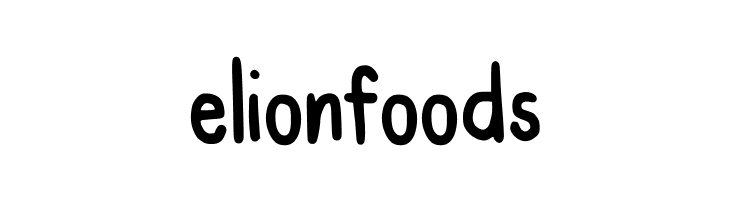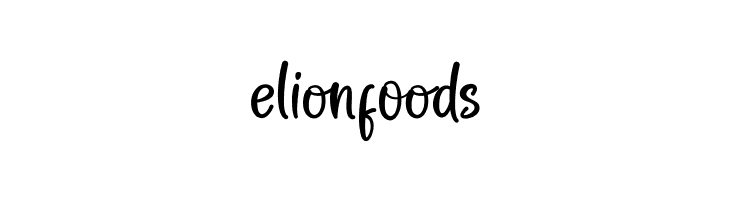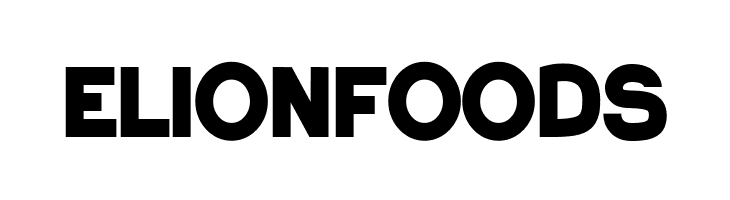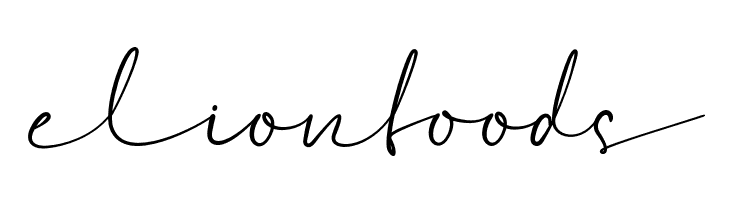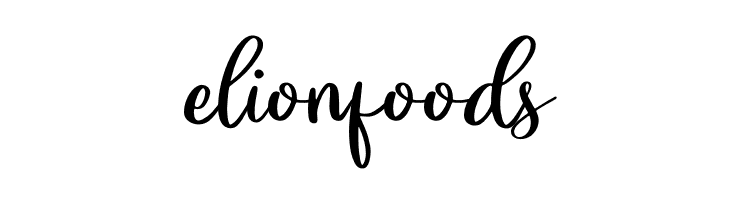
A playful, modern font with tall, narrow letters and smooth, rounded strokes.
A playful, rounded font with a casual and friendly style.
A playful, rounded font with a hand-drawn, whimsical style.
A playful and casual script font with smooth, flowing lines.
A playful, handwritten font with smooth, flowing characters.
A bold, 3D geometric font with a playful and dynamic style.
A bold, geometric font with strong, uniform strokes for impactful design.
A modern, handwritten font with a casual and flowing style.
A lively and expressive script font with flowing, interconnected letterforms.